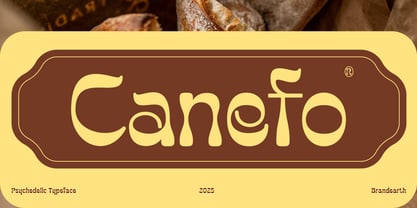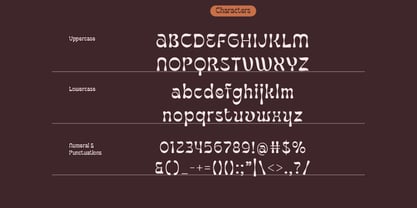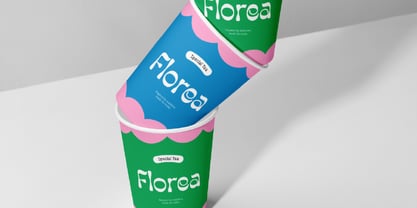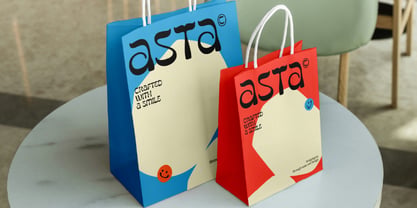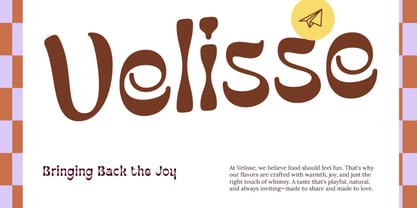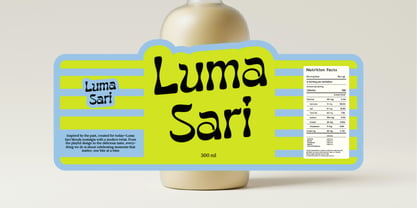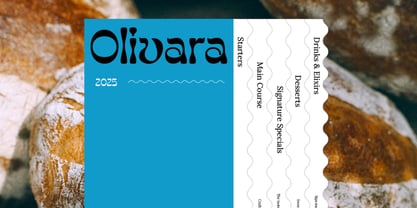
Canefo
The Canefo Font Family was designed by Moch Rasjid Wiyono and published by Brandearth. Canefo contains 1 styles. More about this family
Caneto is a bold psychedelic display typeface featuring fluid, melting letterforms and playful retro curves inspired by vintage 60s–70s design culture. The font includes full uppercase, lowercase, numerals, and punctuation with expressive shapes that create a strong visual personality. Designed for high-impact display use, it comes in clean vector format with multilingual support and smooth readability at large sizes. Relevance and Use Cases is perfect for retro branding, music posters, festival visuals, product packaging, creative campaigns, social media graphics, and bold logo design that needs a playful, nostalgic, and eye-catching personality.